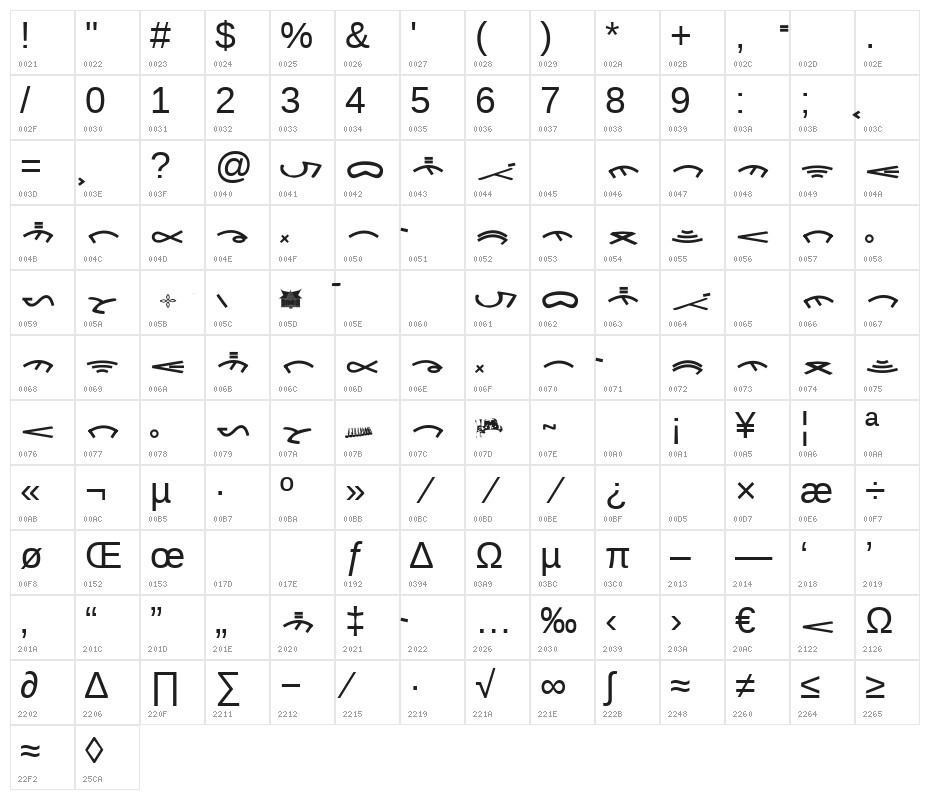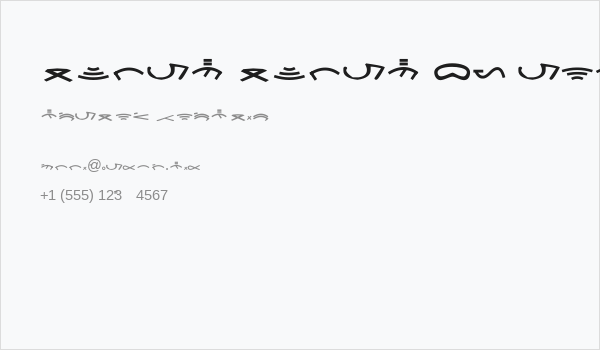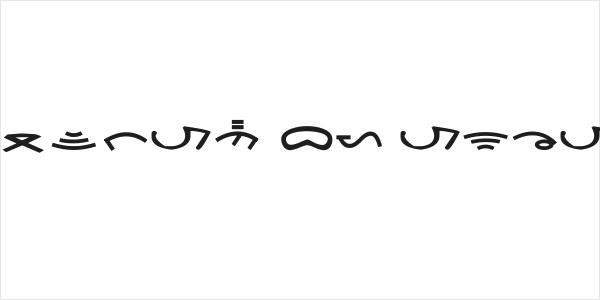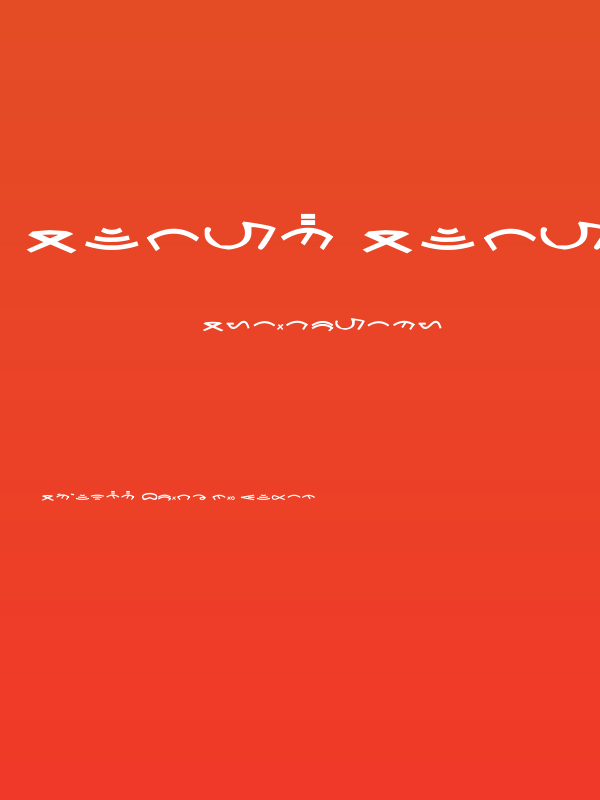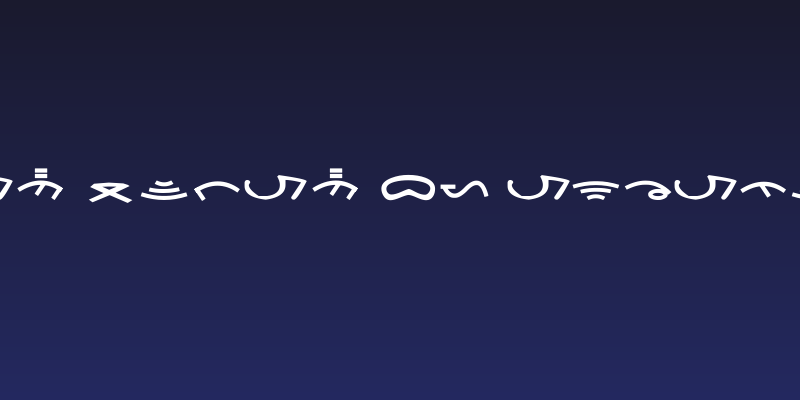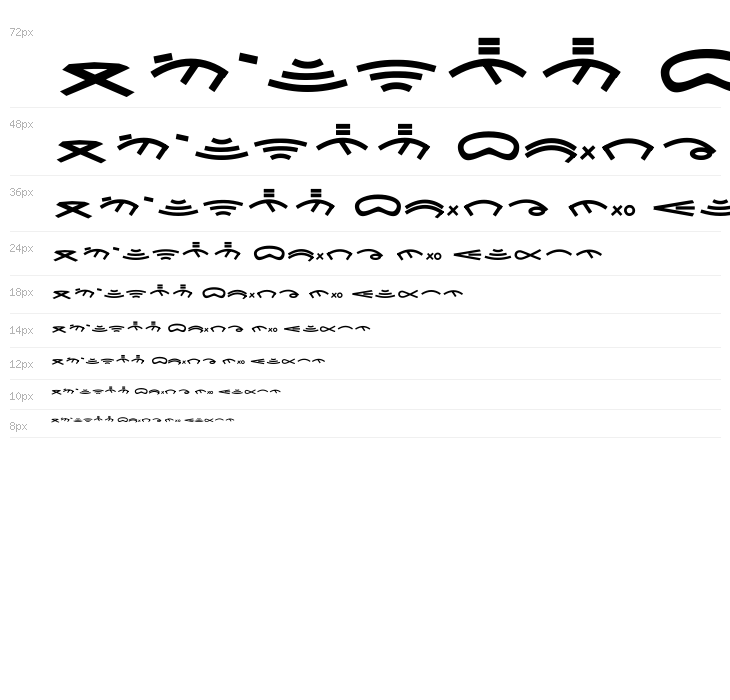
Tulak Tulak By AINasution Font
Tulak Tulak By AINasution Description
This font features a unique and abstract design, characterized by its intricate and curvilinear shapes that resemble a form of artistic script or symbolic language. The characters are composed of smooth, flowing lines with varying thickness, creating a sense of movement and rhythm. The numerals and special characters maintain a more traditional, bold sans-serif style, providing a stark contrast to the decorative letters. This combination of styles makes it versatile for creative projects that require a blend of modern and artistic elements.
| Overall Style | Modern, Artistic |
| Use Case | Logos, Artistic projects, Posters |
| Proposed Projects | Ideal for artistic projects, branding, logos, and creative posters where a unique and eye-catching typeface is desired. |